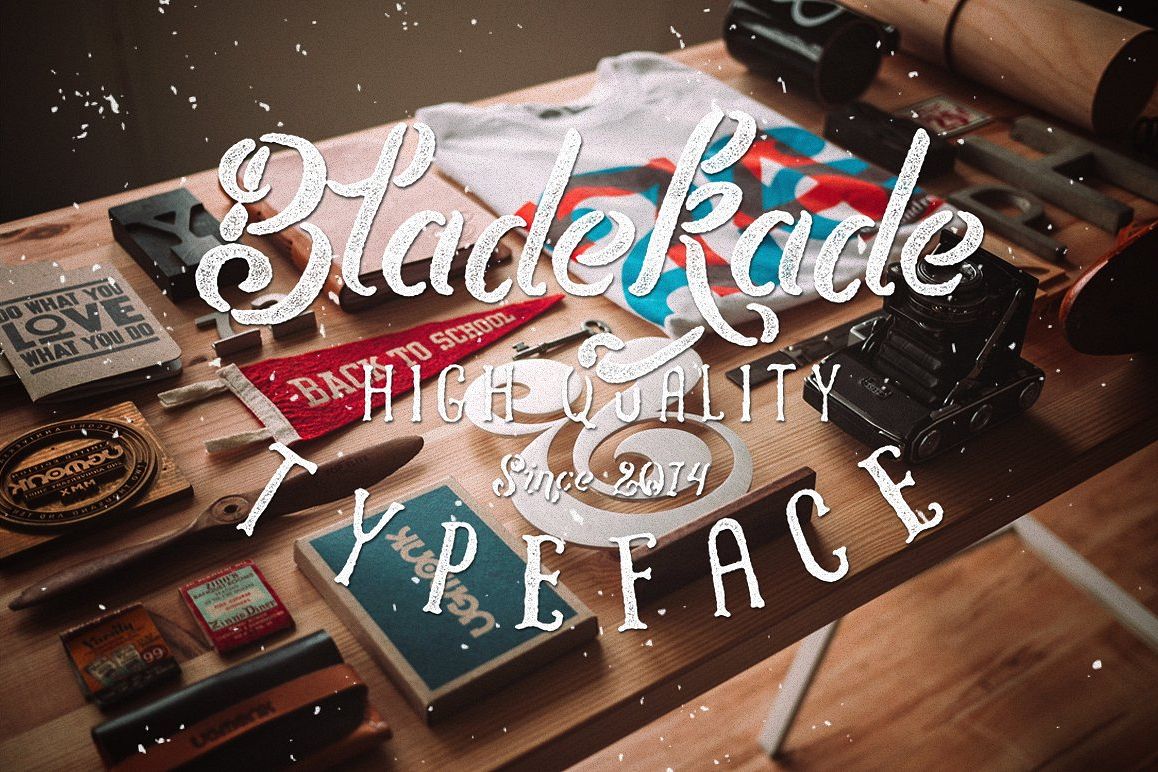
Bladekade
Bladekade is Stancil script font with a hand drawn style. bladekade have some alternate characters. bladekade very suited for lettering, logo brand, clothing, posters and others